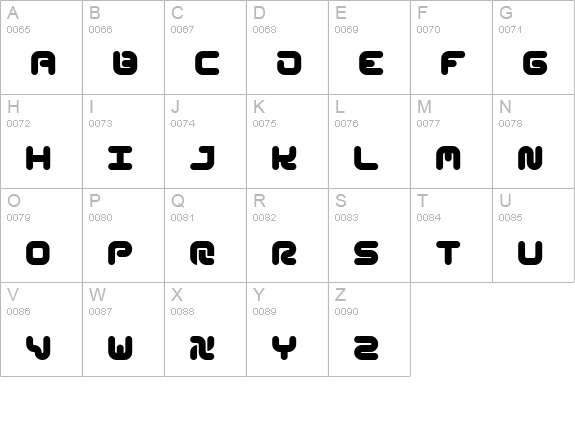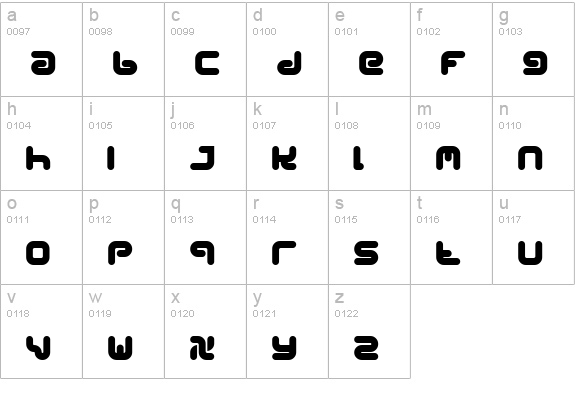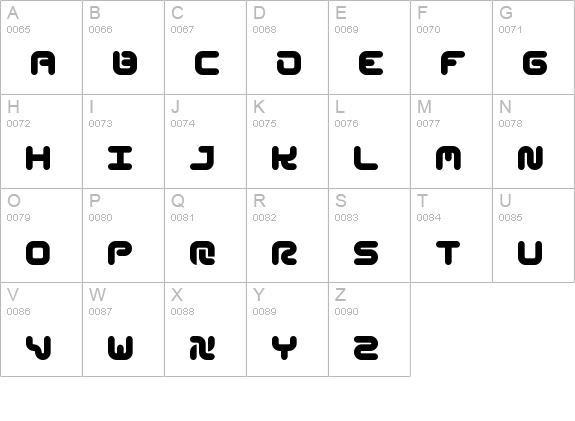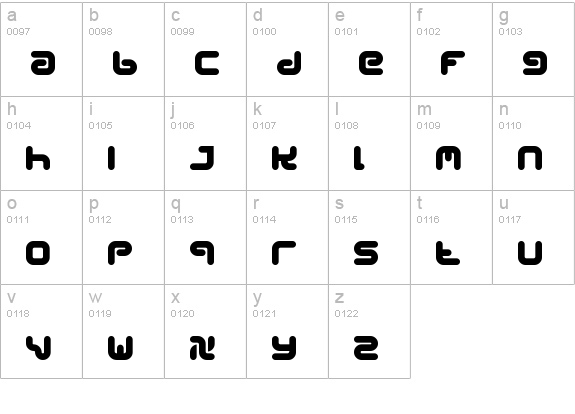
Styl Plain Font Details
Styl Plain font is a modern and versatile typeface that exudes elegance and sophistication. With its clean lines and sleek design, this font is perfect for a wide range of design projects, from branding and advertising to web design and print materials. The Styl Plain font is free to use and is freely available to download at FontsMarket.com. Its timeless appeal and versatility make it a popular choice among designers looking for a sleek and professional font for their projects. With its simple yet stylish look, Styl Plain font is sure to make a statement and elevate any design to the next level.